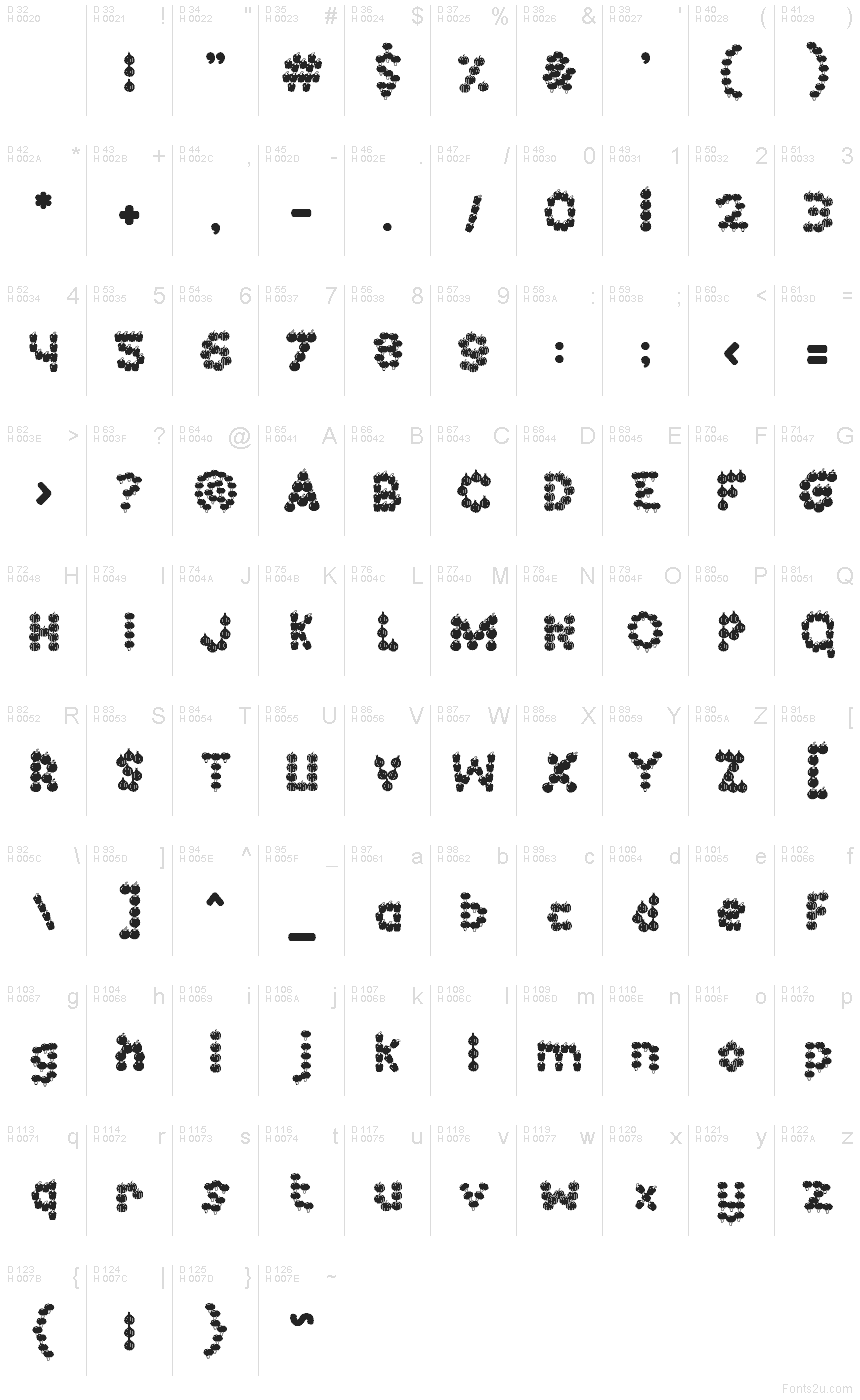
Green Delight Vegetable 3
Green Delight Vegetable 3 font by PutraCetol Studio is a visually intricate, decorative font with a textured effect. Its bold style provides the perfect whimsical essence for a cheerful, nature-inspired aesthetic. With voluminous letters and organic forms, the typeface conveys natural freshness.